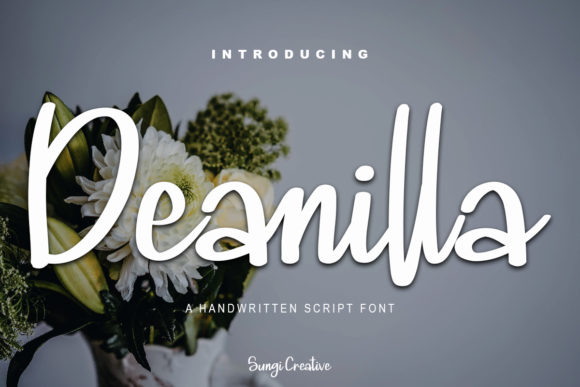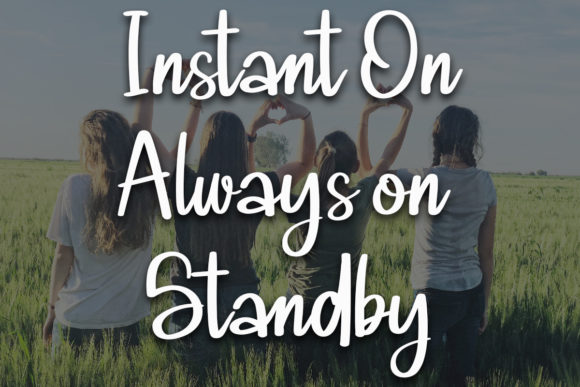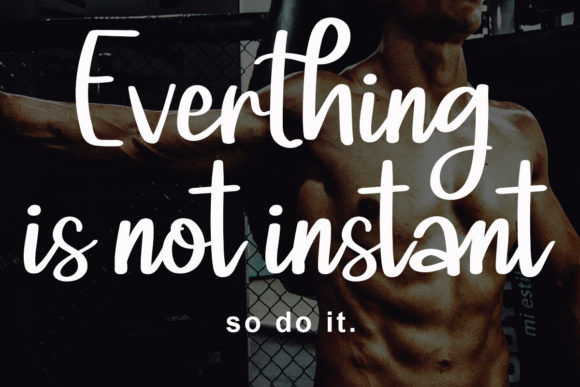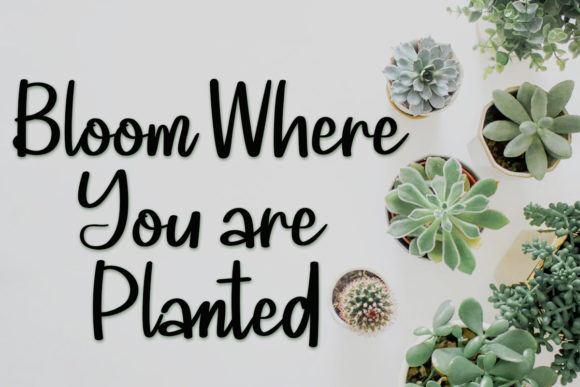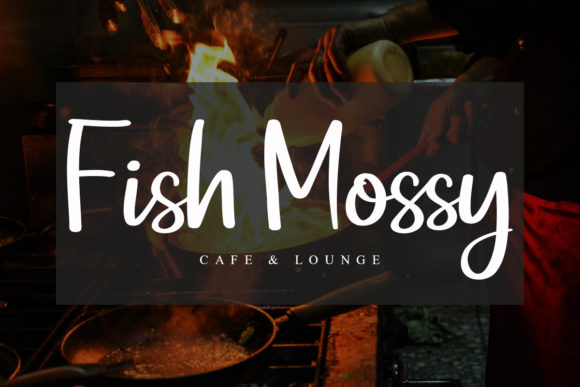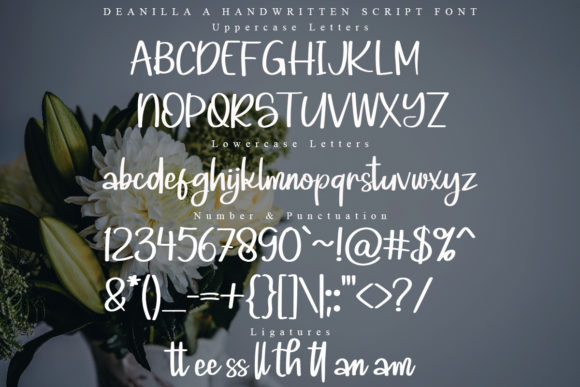
Deanilla Font
About Deanilla Font
Deanilla is a beautiful and flowing handwritten font, created with the help of a pen brush. Masterfully designed to become a true favorite, this font has the potential to bring each of your creative ideas to the highest level!